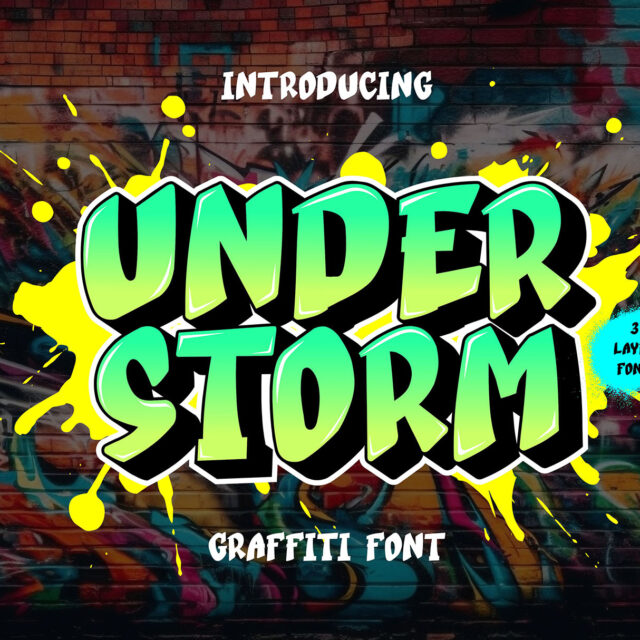
About Under Strom
“Under Storm” is a graffiti font with three unique layers: regular, inner shadow, and outer shadow. This font is designed to add depth and dimension to your typography, creating a captivating and dynamic look. The regular layer provides a bold and impactful appearance, while the inner and outer shadow layers add a 3D effect, giving your designs an edgy and urban vibe. With its layered style, “Under Storm” is perfect for creating eye-catching street art, posters, and other urban-themed projects. Embrace the storm of creativity with this versatile and dynamic graffiti font.